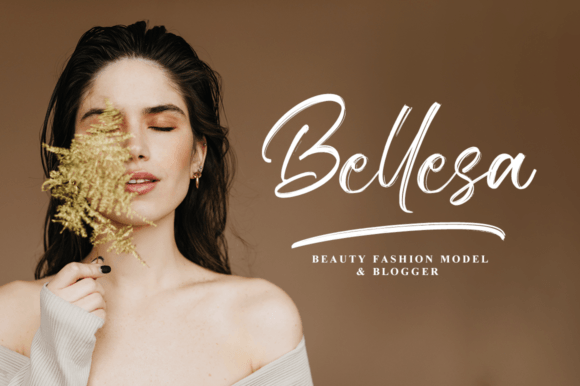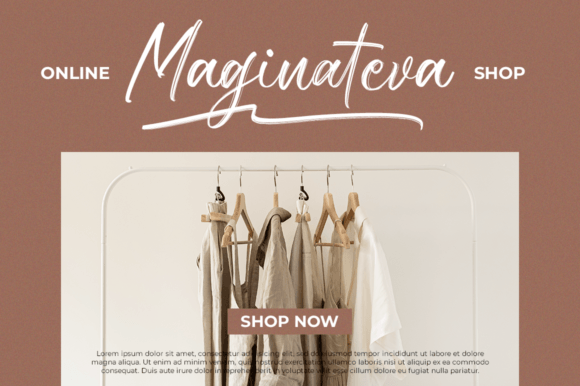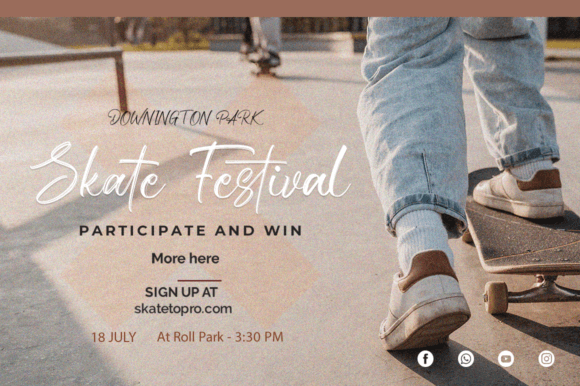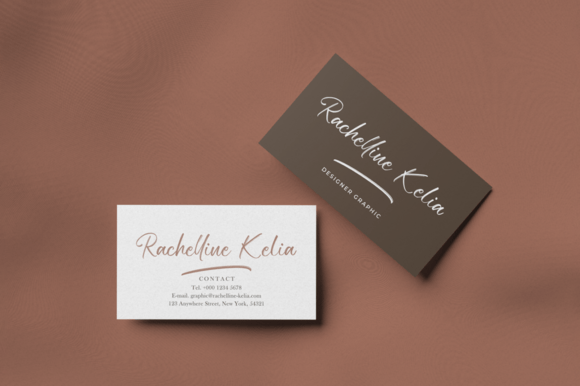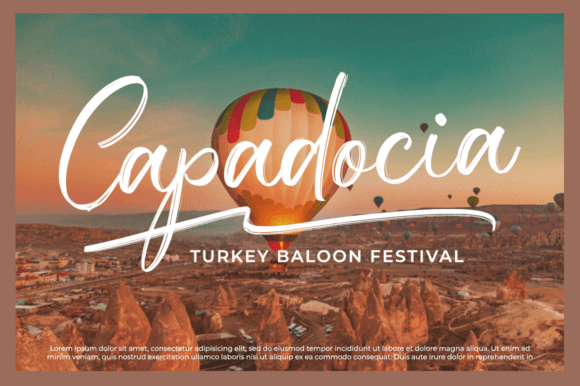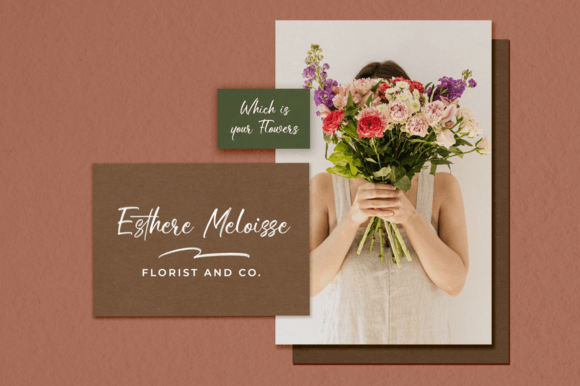
The Birth of a Bold New Era in Typography
Remember that moment when you’re brainstorming a new project and you stumble upon the perfect font to bring your vision to life? For designers, it’s a thrill that never gets old. You start imagining the possibilities, the way the text will flow, and the emotions it will evoke. And then, you find it – the perfect combination of style, elegance, and character that sets your project apart from the rest.
Enter the Camelleone Font, a stunning brushed handwritten font designed to elevate your headlines and logotype projects. With its strong, confident, and dynamic feel, Camelleone Font adds a touch of nostalgia to your designs, making it a valuable asset for any designer looking to create a lasting impression.
Whether you’re working on a branding project, a website, or a social media campaign, Camelleone Font is sure to bring a unique and captivating element to your work. Its bold and expressive strokes make it perfect for grabbing attention and conveying a sense of personality.
Camelleone Font Key Features
- Unique Characteristics:
- Calligraphic script with elegant and refined feel
- Perfect for formal invitations, wedding stationery, and luxury branding
Camelleone Font Review
As a designer, I was excited to dive into the Camelleone Font and see what it had to offer. Here’s my honest review:
- ✨ Unique and elegant design: The Camelleone Font has a distinctive, hand-drawn feel that sets it apart from other fonts. It’s perfect for adding a touch of sophistication to your designs.
- ✨ High-quality typography: The font is well-crafted, with clean lines and smooth curves that make it a joy to work with.
- ✨ Versatile: Camelleone Font is suitable for a wide range of applications, from fashion and beauty to luxury and high-end branding.
- ⚠️ Limited character set: While the font is beautiful, its character set is limited, which may make it less suitable for languages that require a wide range of characters.
- ⚠️ Not ideal for body text: Due to its elegant, cursive nature, Camelleone Font may not be the best choice for large blocks of body text.
Overall, I think Camelleone Font is a great choice for designers looking to add a touch of elegance to their projects. While it may have some limitations, its unique design and high-quality typography make it a standout font. With careful use, it can add a level of sophistication that’s hard to achieve with other fonts.
Getting the Most Out of the Camelleone Font
The Camelleone Font is a beautiful, elegant script font that is perfect for adding a touch of sophistication to your designs. To get the most out of it, try using it in conjunction with bold or italic fonts to create visual interest. You can also experiment with different font sizes and colors to create a unique look.
The Camelleone Font is perfect for:
- Personalized gifts and certificates
- Any design project that requires a touch of elegance and sophistication